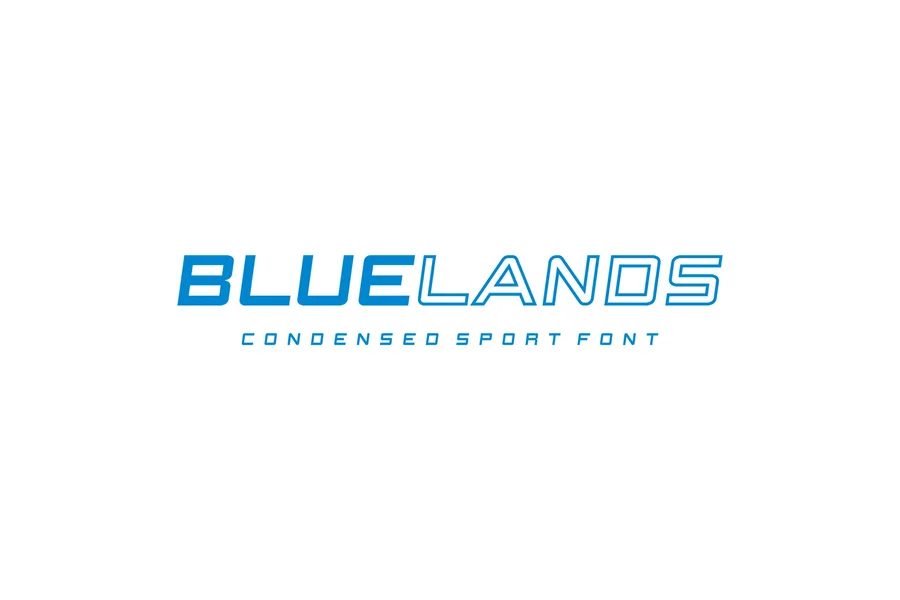
Bluelands – Condensed Sport Font
Introducing our new product Bluelands Font – Modern Font
Bluelands Font- Modern Font is a bold and authentic display font. The font is suitable for any branding project like logo, esport, and many more. outstanding in a wide range of contexts.